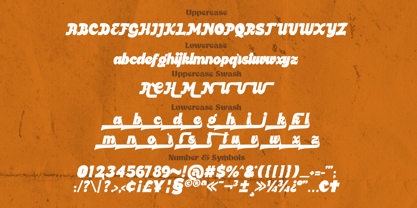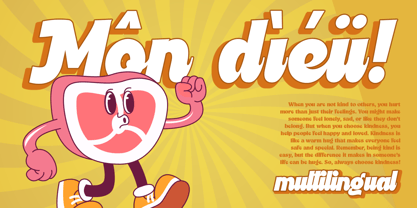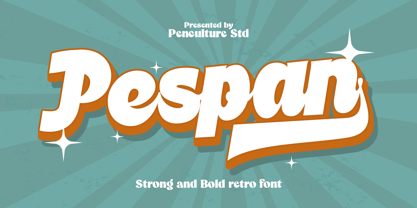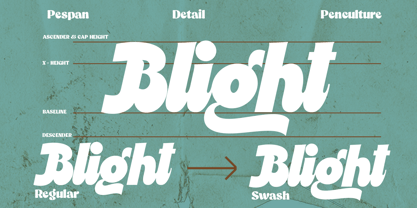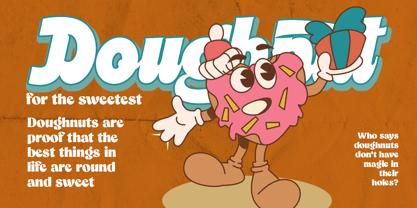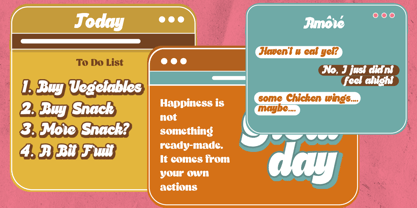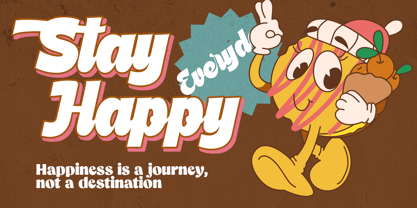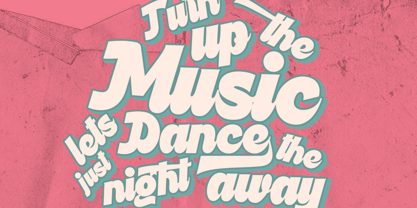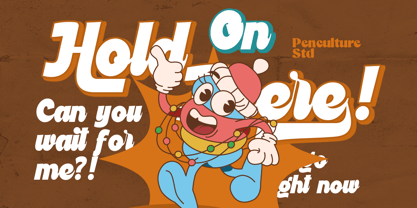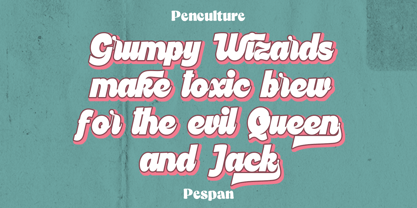
Pespan
by Pen Culture
The Pespan Font Family was designed by Revo Farsiky and published by Pen Culture. Pespan contains 1 styles. More about this family
Pespan is a bold script font that exudes energy and style. Featuring striking ligatures and exceptional stylistic alternates, Pespan gives you the flexibility to create unique, customized designs with ease.
Perfect for logos, branding, packaging, posters, and more, this font blends boldness with elegance, making it ideal for projects that demand attention and character. No matter the design aesthetic, Pespan adds a creative touch to every project.